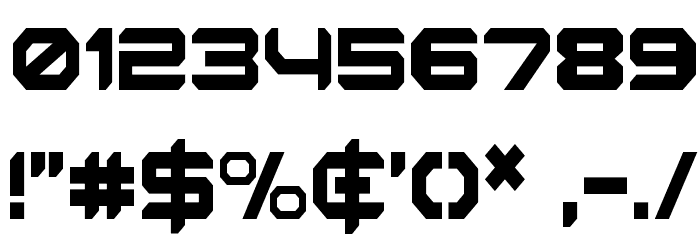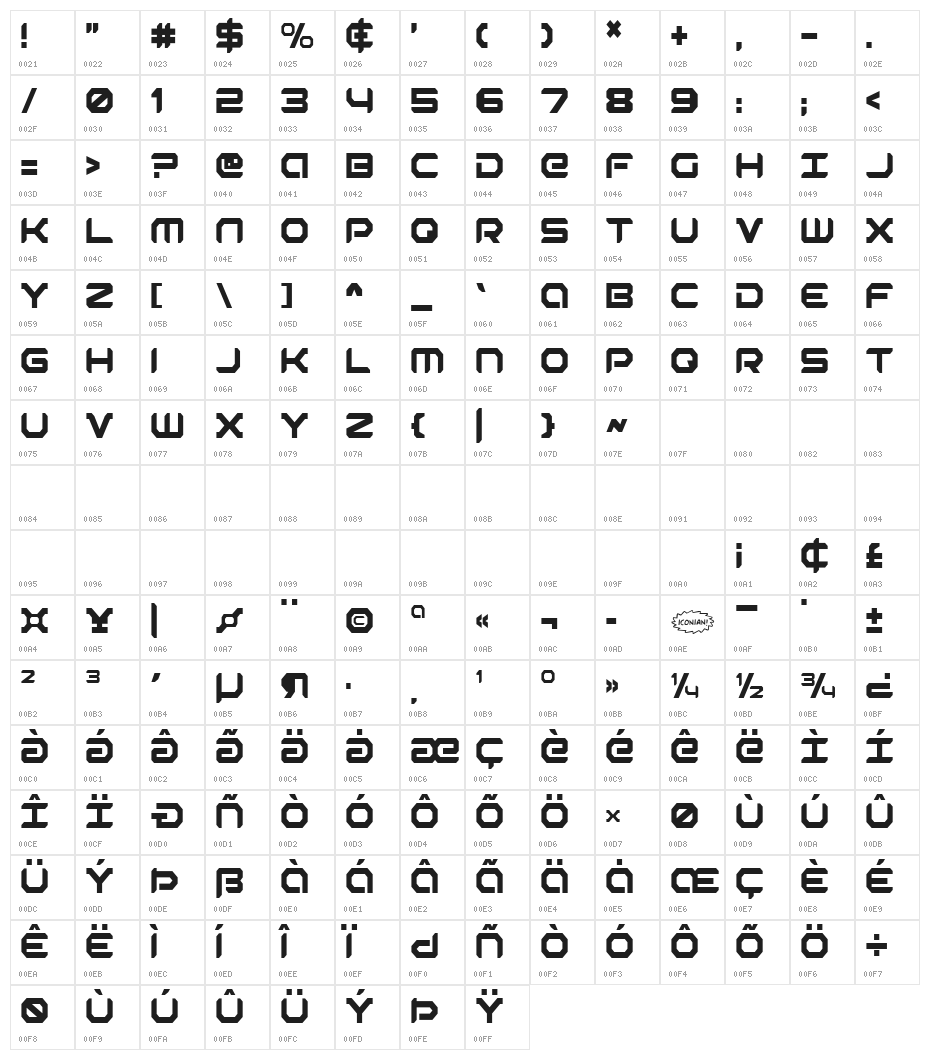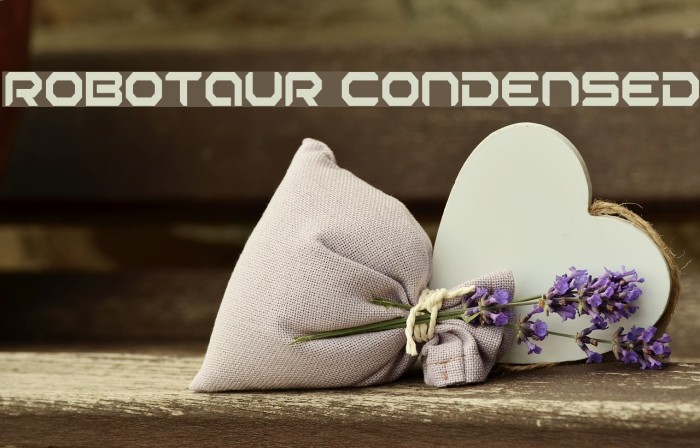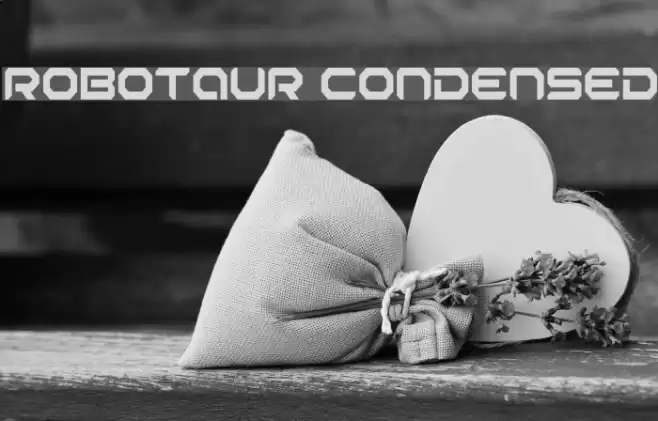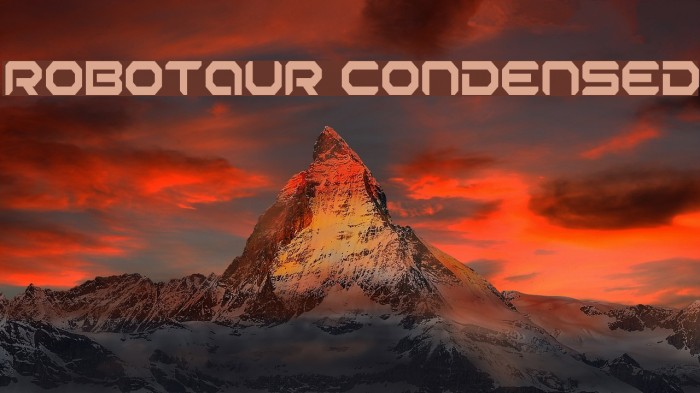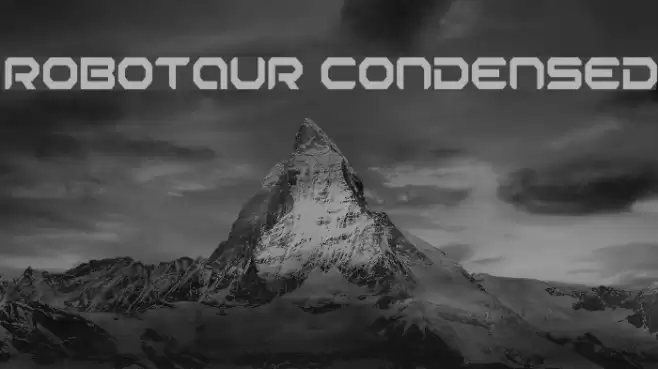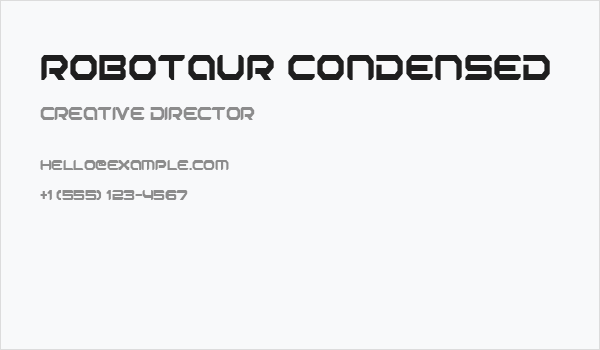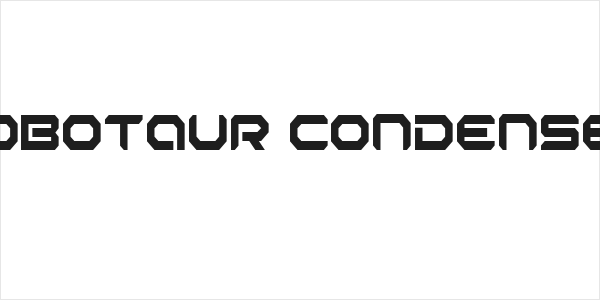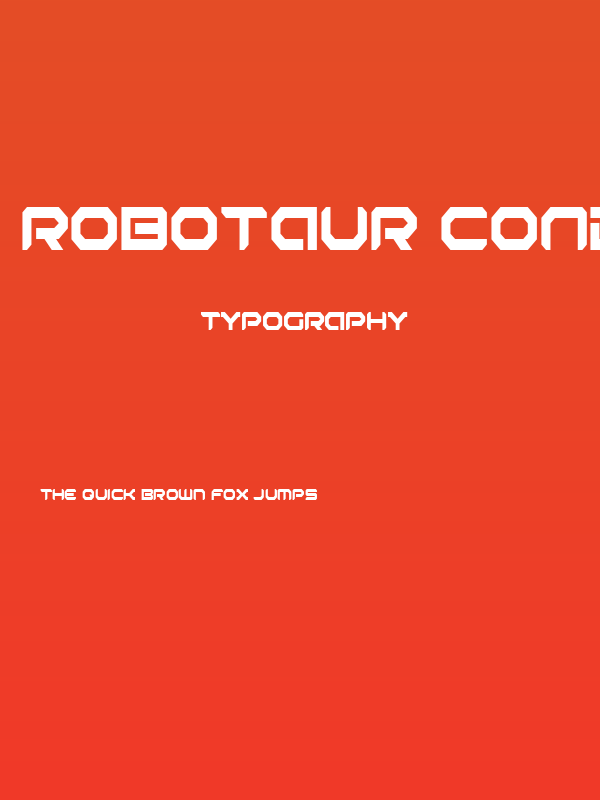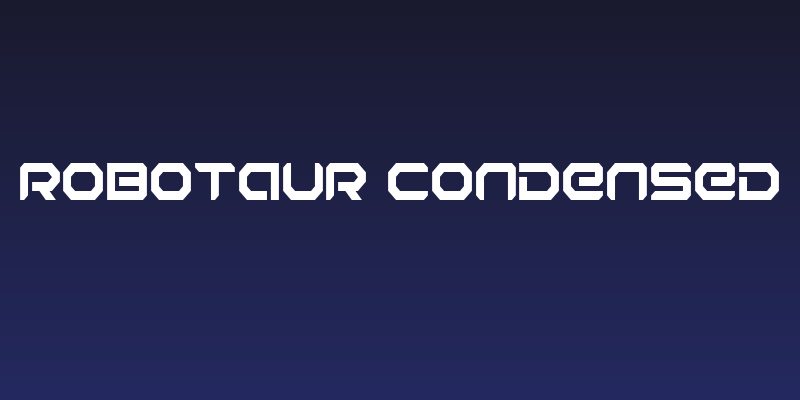
Robotaur Condensed Font
Robotaur Condensed Description
This font features a futuristic and geometric design, characterized by its bold and angular letterforms. The characters have a distinct block-like appearance with sharp edges and minimal curves, giving it a modern and technological feel. The condensed width of the font allows for efficient use of space, making it suitable for headlines and display purposes. The uniform stroke weight across all characters provides a consistent and cohesive look, while the unique shapes of letters like 'A', 'R', and 'G' add a touch of uniqueness. The numerals and special characters maintain the same stylistic approach, ensuring harmony throughout the typeface.